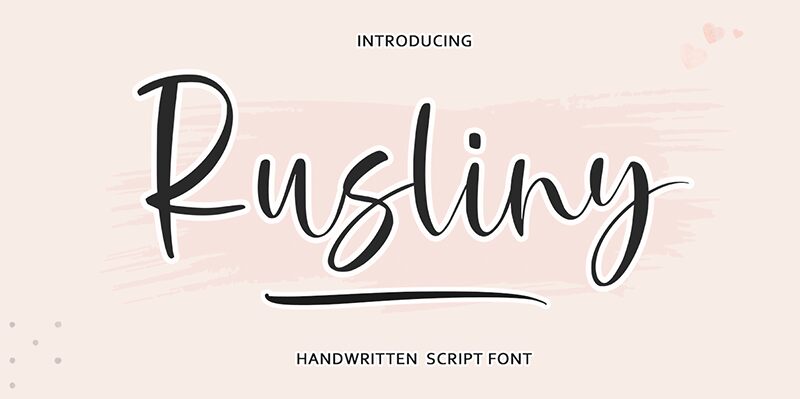
Rusliny Underline font is a free handwritten font created by Rastype. It embodies elegance and sophistication with its flowing, decorative characters and vintage-inspired style. Cascading underlines add an extra layer of charm without shifting the viewer’s attention from the message or its main text.
This charming typeface is perfect for greeting cards, stationery design, quotes, and home décor projects. Every branding project will automatically benefit from a classic element of excellence that finds its spot in the logos, slogans, or advertising content. Poster head titles are also some possible use cases along with packaging designs, magazine titles and covers, webpages, online shops typography etc.